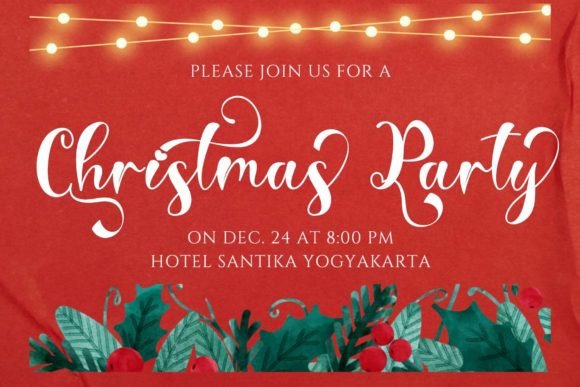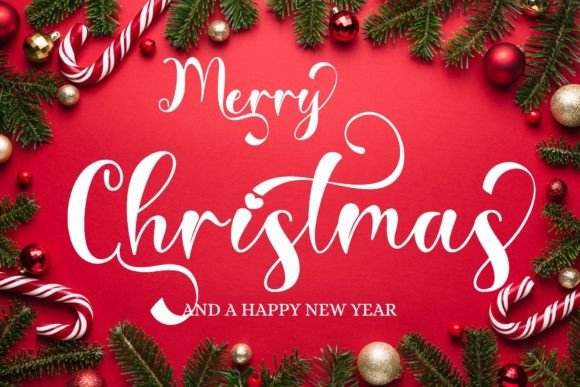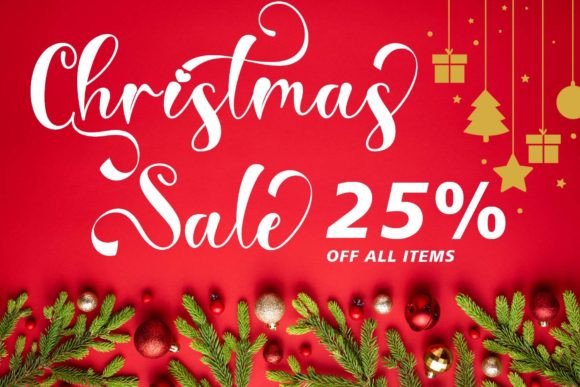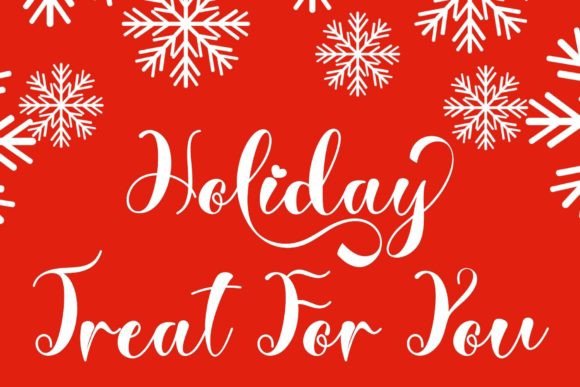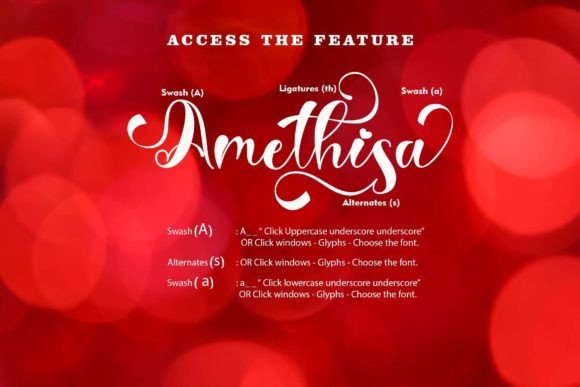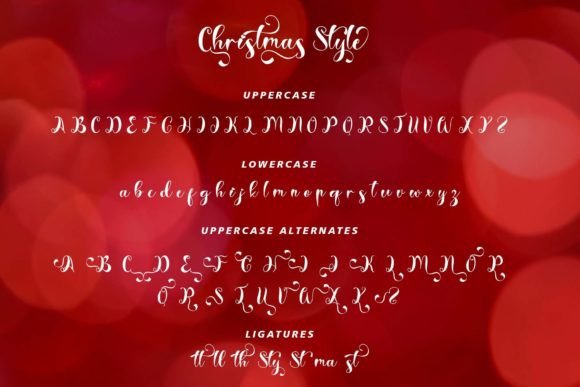
Deck the Halls with Christmas Style Font: A Festive Calligraphy Typeface
As the holiday season approaches, designers and crafters are on the lookout for the perfect typography to add a touch of magic to their projects. Look no further than Christmas Style Font, a festive and luxurious calligraphy typeface that’s sure to make your designs sparkle. In this article, we’ll dive into the features and benefits of Christmas Style Font, and explore how it can elevate your holiday designs.
What is Christmas Style Font?
Christmas Style Font is a beautifully crafted calligraphy typeface that’s designed to evoke the spirit of the holiday season. With its flowing, cursive lines and dancing characters, this font is perfect for adding a touch of elegance and sophistication to your designs. Whether you’re creating holiday cards, gift tags, or festive posters, Christmas Style Font is sure to make your projects stand out.
Key Features of Christmas Style Font
- Festive and Magical Design: Christmas Style Font features characters that dance along the baseline, giving it a playful and whimsical feel that’s perfect for the holiday season.
- Luxury Spark: With its elegant, cursive lines and flowing curves, Christmas Style Font adds a touch of luxury to any design project.
- PUA Encoded: This font is PUA (Private Use Area) encoded, which means you can access all of the amazing glyphs and ligatures with ease. This makes it simple to create beautiful, intricate designs that showcase the full range of the font’s capabilities.
Benefits of Using Christmas Style Font
So why choose Christmas Style Font for your holiday designs? Here are just a few benefits of using this amazing typeface:
- Stand Out from the Crowd: This unique and eye-catching font is sure to make your designs stand out from the crowd and leave a lasting impression on your audience.
- Versatile: This font can be used for a wide range of design projects, from holiday cards and gift tags to festive posters and social media graphics.
Tips for Using Christmas Style Font
To get the most out of Christmas Style Font, here are a few tips to keep in mind:
- Pair with Other Fonts: Christmas Style Font pairs beautifully with other fonts, so don’t be afraid to get creative and try out different combinations.
- Use for Headlines and Titles: This font is perfect for headlines and titles, where its elegant, cursive lines can really shine.
Who is Christmas Style Font for?
Christmas Style Font is perfect for designers, crafters, and DIY enthusiasts who want to add a touch of luxury and sophistication to their holiday designs. Whether you’re creating designs for personal use or for clients, this font is sure to impress.
- Designers: Add a touch of elegance and sophistication to your holiday designs with Christmas Style Font.
- Crafters: Use this font to create beautiful holiday cards, gift tags, and other crafts that showcase your creativity and skill.
Christmas Style Font is a festive and luxurious calligraphy typeface that’s perfect for adding a touch of magic to your holiday designs. With its elegant, cursive lines and dancing characters, this font is sure to make your projects stand out. Whether you’re a designer, crafter, or DIY enthusiast, Christmas Style Font is a must-have for the holiday season.